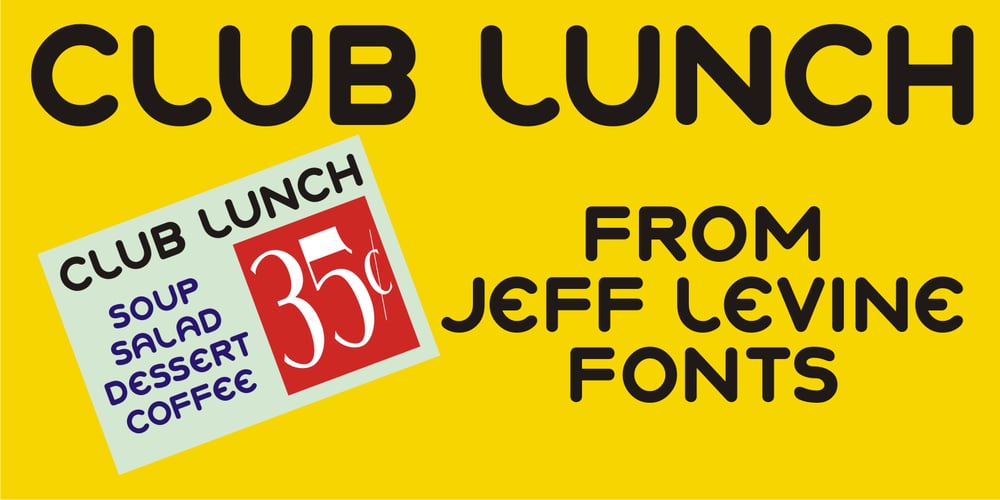
Club Lunch JNL
Club Lunch JNL font
Club Lunch JNL Font Family was designed by Jeff Levine and published by Jeff Levine. Club Lunch JNL contains 1 styles and family package options. A 1930s-era hand-lettered sign advertising a club lunch (consisting of soup, salad, dessert and coffee for 35 cents) provided not only the Art Deco lettering style but the name for Club Lunch JNL.